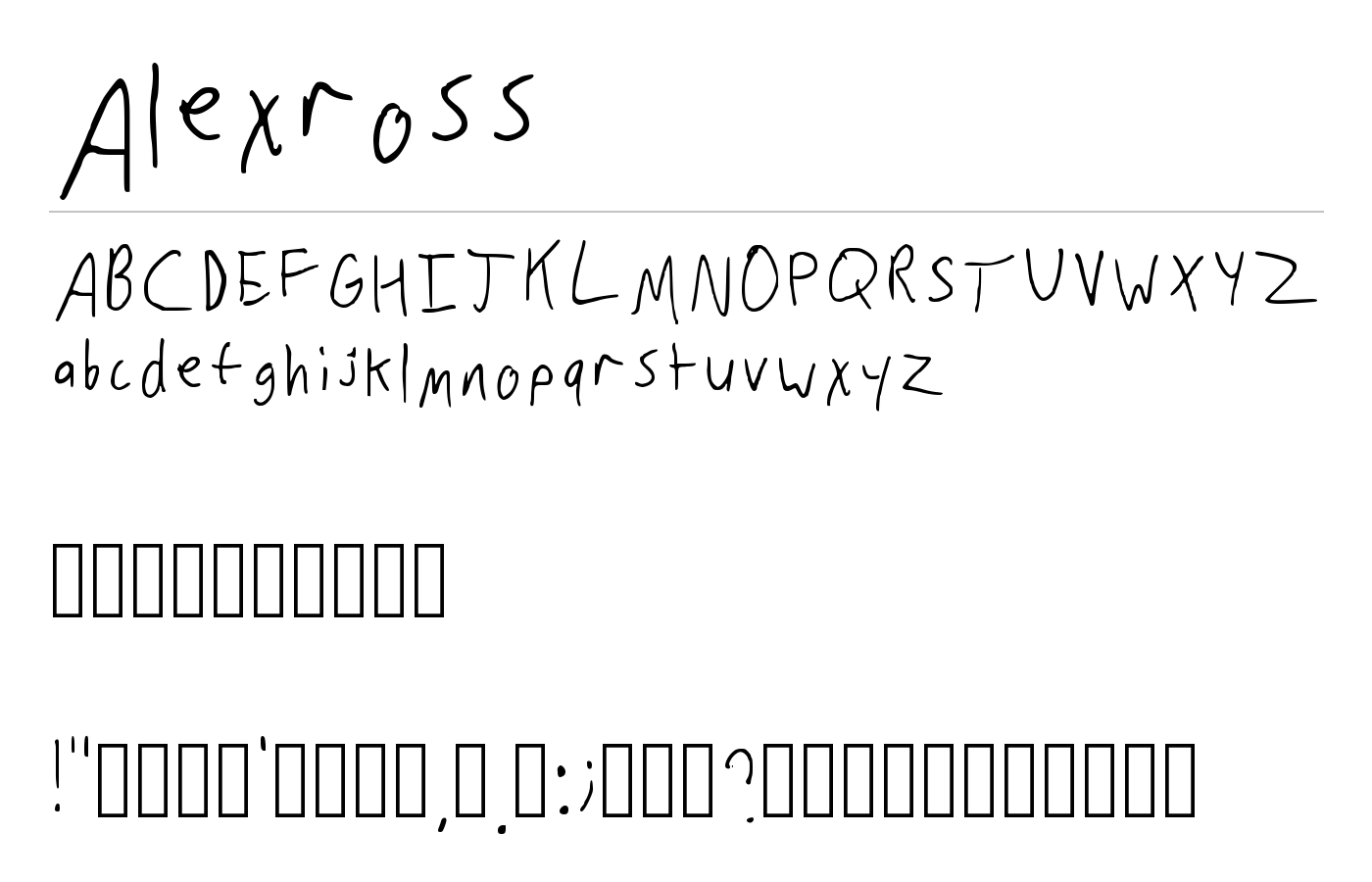
Alexross is a quirky, handwritten sans serif font that feels casual and personal, with irregular strokes and playful letterforms. Its thin, uneven lines and tall, narrow characters give it a charming, informal vibe that suits creative projects, children's materials, or any design seeking a friendly, handcrafted look. This font works well for headlines, logos, and invitations where a warm, approachable tone is desired.
Alexross Font
About Alexross Font